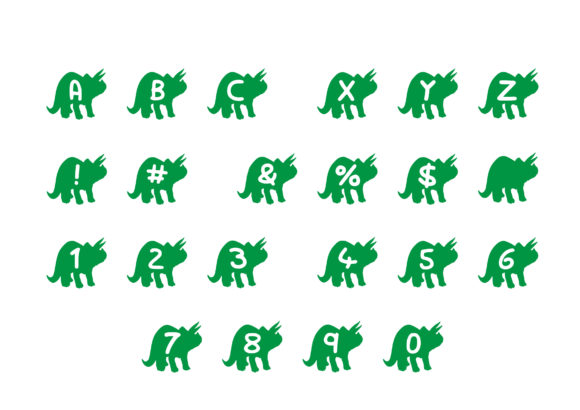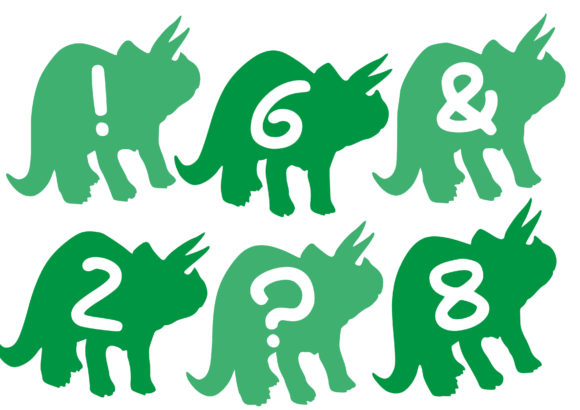
Introduction to Play Dino Font
Have you ever been in the middle of a creative project, pouring your heart and soul into it, only to feel like something is missing? That’s where the magic of a great design resource comes in – a single element can elevate your entire creation. For designers, the perfect font can make all the difference, and that’s exactly what the Play Dino Font offers.
Imagine a font where every character is not just a symbol, but a tiny dino waiting to roar its way onto your design. This unique and quirky font is the perfect addition to any designer’s library, and its transparent background makes it incredibly versatile. Whether you’re working on a high-quality logo, a creative project, or just need a fun touch, the Play Dino Font has got you covered.
Key Features of Play Dino Font
- High-quality design: This font is designed to provide a premium look for any project, with a transparent background allowing for easy customization.
- Unique dinosaur-inspired characters: The Play Dino Font features a set of creative and playful characters, making it perfect for kids’ projects, educational materials, or any theme-related design.
- Perfect for creative projects: The Play Dino Font is ideal for use in various design projects, including logos, graphics, and educational materials.
Honest Review: Play Dino Font
As a designer, I was excited to dive into the world of the Play Dino Font, a fun and quirky addition to any design project. At first glance, I was struck by its unique charm and creative potential. This font is perfect for those looking to add a touch of whimsy to their design.
- ✨ High-quality design: The Play Dino Font has a smooth, well-crafted feel that makes it perfect for use in creative projects.
- ✨ Transparent background: The font’s transparent background allows for seamless integration with other design elements, making it a great choice for designers who want to add a pop of personality to their work.
While the Play Dino Font has a lot going for it, there are a few limitations to consider. The font’s unique style may not be to everyone’s taste, and it may not be suitable for more formal or professional projects.
- ⚠️ Limited versatility: The font’s quirky style may not be suitable for all design projects, and it may not be as versatile as other font options.
Overall, I was impressed by the Play Dino Font’s unique charm and creative potential. While it may not be the best choice for every project, it’s a great option for designers looking to add a touch of whimsy to their work.
Play Dino Font
When using Play Dino Font, remember to use it in a way that complements your design. For example, you can use it as a header or title font to add a creative touch to your project. You can also use it to create a fun and playful atmosphere in your design. Some common use cases for Play Dino Font include creating a children’s book, designing a party invitation, or developing a brand identity.